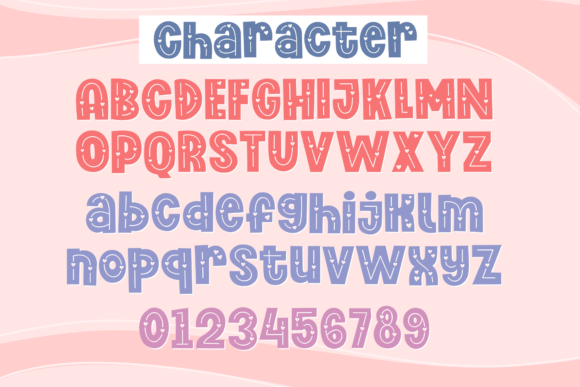
Love Hugs Font
Love Hugs is a cute, bold and thick lettered display font with heart elements. Use this font when making your Valentine’s Day crafts or Mother’s Day designs.